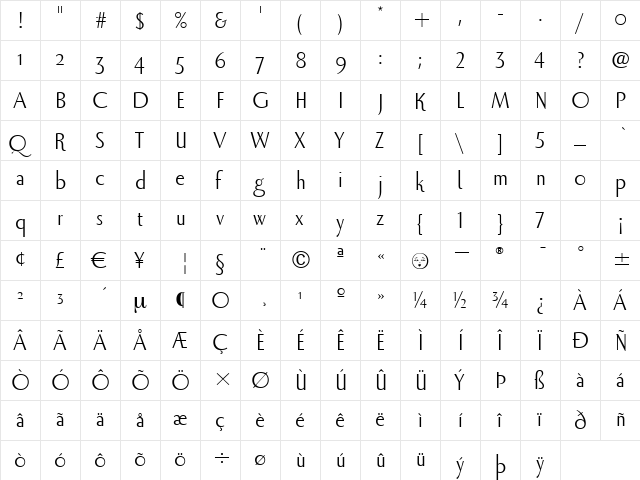
LunaITC TT Regular
| Foundry | International Typeface Corporation |
| Designer | Akira Kobayashi |
Design Context for LunaITC TT Typeface
LunaITC TT takes a measured approach to typography — its balanced proportions and neutral character make it a reliable workhorse for both digital and print work.